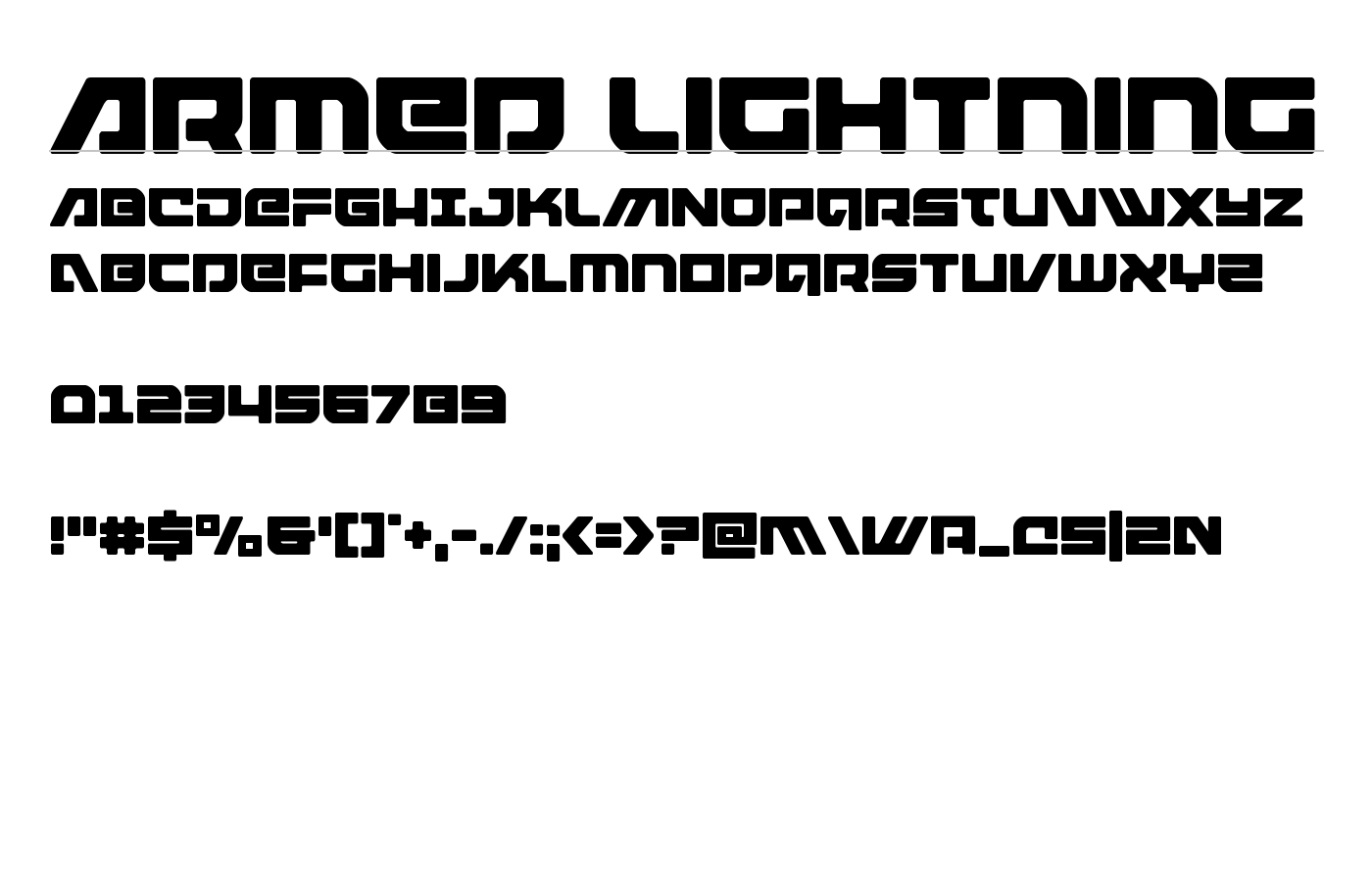
Armed Lightning is a bold, geometric sans-serif font with a futuristic and edgy vibe, featuring blocky, condensed letterforms and strong, angular shapes. Its high weight and square structure make it perfect for impactful headlines, branding, and designs that demand attention with a modern, tech-inspired personality. This font works well in logos, posters, and packaging where a striking, contemporary look is desired.
Armed Lightning Font
About Armed Lightning Font